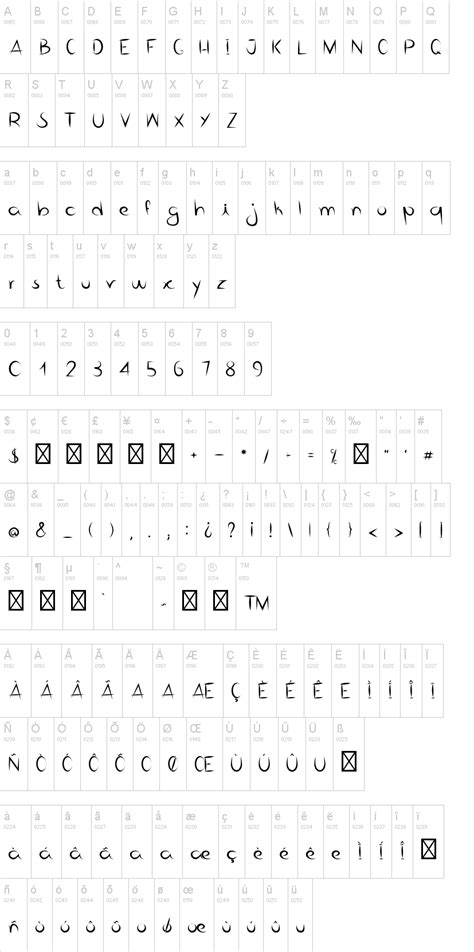
This is a free font with a beautiful flow called bilius script. Feel free to use it for personal purposes. Home > best script fonts > bilius font. Fonts bilius in script category. Maria.bilius@yahoo.com for commercial use please see the li.
( fonts by bilibus ).
You can use these fonts to create custom styles. Script typefaces are based upon the varied and often fluid stroke created by handwriting, pretty much like the cursive fonts just typically more elegant. You can contact me at: If you need a cute script font that has a strong personal touch, then this bilius font is what you are looking for. Download the libby script font by sam wang. Bilius, handwriting, bilius.ttf, windows font. Bilius bilius.ttf 44 kb | my handwritten font. Handwriting fonts script fonts adventure fonts baseball font fake calligraphy cool this license gives you unlimited usage of the font kr little love notes in your teachers pay teachers products. The bilius script font is going to give you a hand to create authentic and original book covers, posters, invitations, and others. Category script, greeting, handwriting, wedding, invitation, beautiful, cute. The bilius font contains 112 beautifully designed characters. Please enter your email address receive a free font daily from fonts101.com in your email!
You can contact me at: The bilius script font is going to give you a hand to create authentic and original book covers, posters, invitations, and others. This creative font is part of the maria bilius font collection. Big thanks to maria bilius for providing us this free demo. Category script, greeting, handwriting, wedding, invitation, beautiful, cute. ( fonts by bilibus ). Home > best script fonts > bilius font. Font name custom text abcde. Fonts bilius in script category. You can contact me at: 0123456789 the quick brown fox. If you need a cute script font that has a strong personal touch, then this bilius font is what you are looking for. Please enter your email address receive a free font daily from fonts101.com in your email!